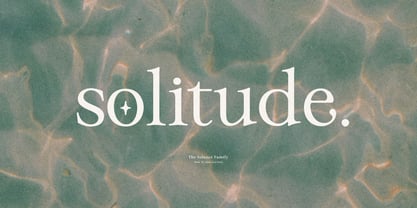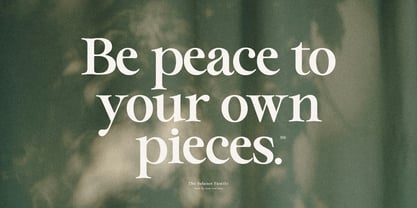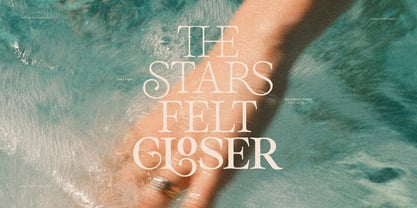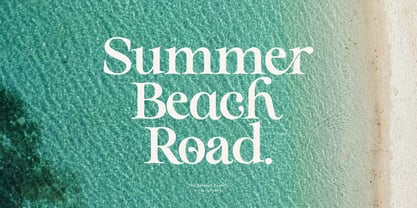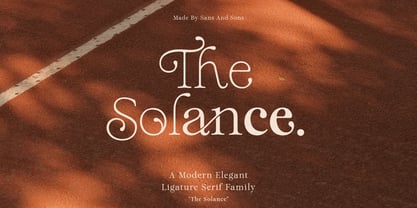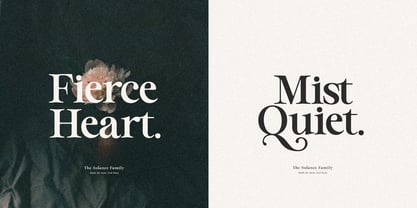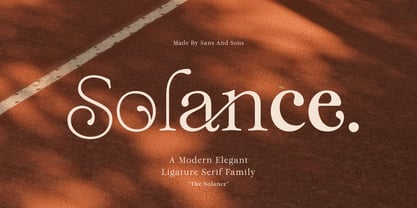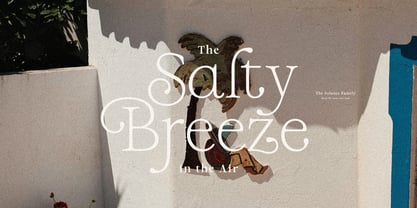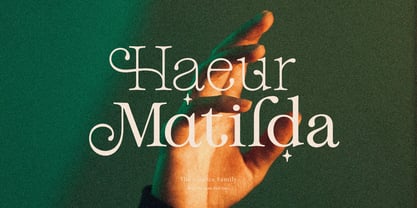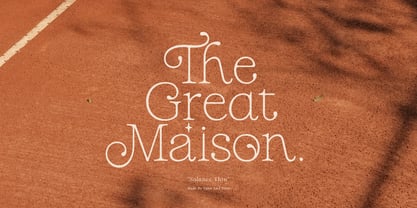
Solance Serif
Die Schriftfamilie Solance Serif wurde von Angga Suwista entworfen und von Sans And Sons veröffentlicht. Solance Serif enthält 7 Stile und Familienpaketoptionen. Mehr über diese Familie
The Solance – Elegant Serif Font Family
The Solance is an elegant serif font family with a soft and timeless feel. Designed with graceful curves and balanced contrast, it brings a calm and refined touch to any creative project.
With 7 styles from Thin to ExtraBold, The Solance gives you the flexibility to create beautiful and consistent typography for branding, editorials, logos, packaging, invitations, social media, and more.
Why You’ll Love The Solance
• Soft and elegant serif style
• 7 versatile styles from Thin to ExtraBold
• Comfortable readability with refined details
• Perfect for branding, editorials, packaging, and invitations
• Suitable for both print and digital projects
Whether you're building a modern brand identity or designing a timeless editorial layout, The Solance brings elegance, balance, and character to every composition.